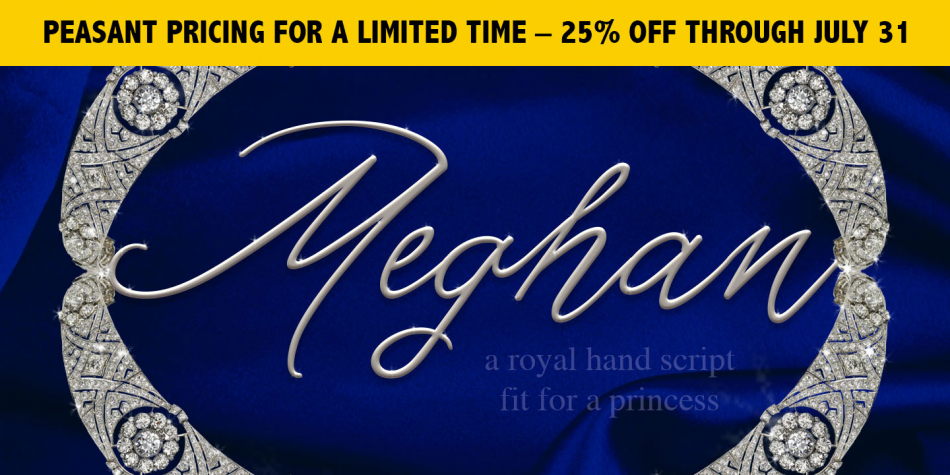
Designed by April Carter Grant, Moubatine is a script font published by La Lettre de Luxe.
The Moubatine font family is based on the handwriting of famous members of royal families.
OpenType ligatures, flourishes, and contextual alternates make each typeface undeniably individual, ornamental yet readable, and memorable—making a realistic effect of custom formal handwriting fast and easy.
Meghan is a connected hand script typeface inspired by the notable calligraphy of the royal family’s newest duchess.
Moubatine faces include uppercase and lowercase alphabet, 0-9, many special characters for for multi-language support, and punctuation.